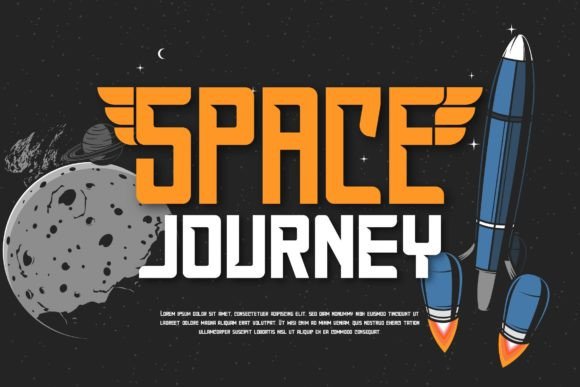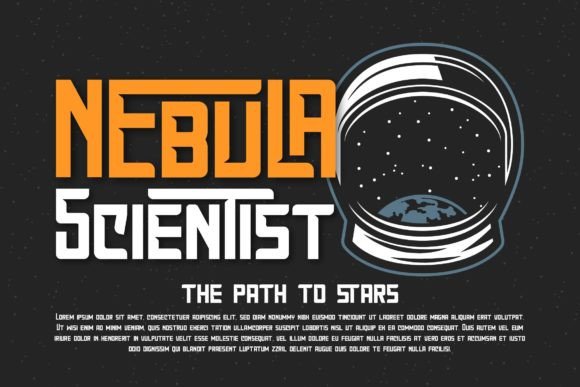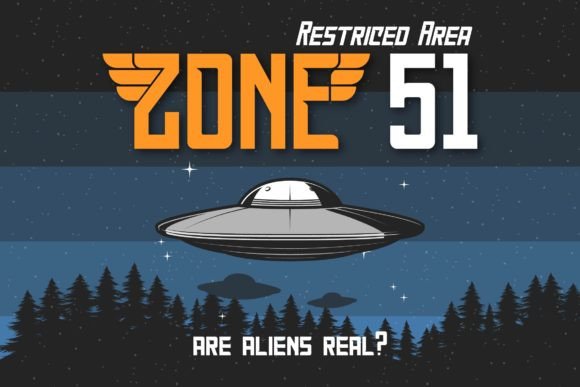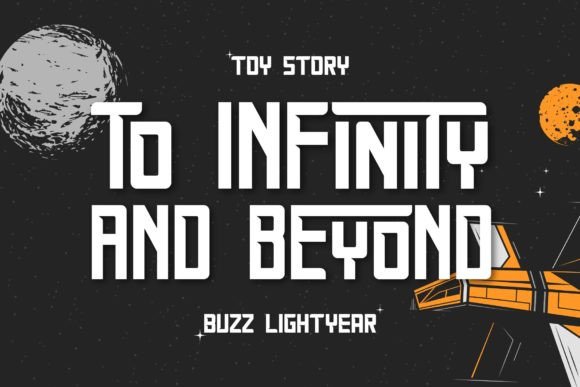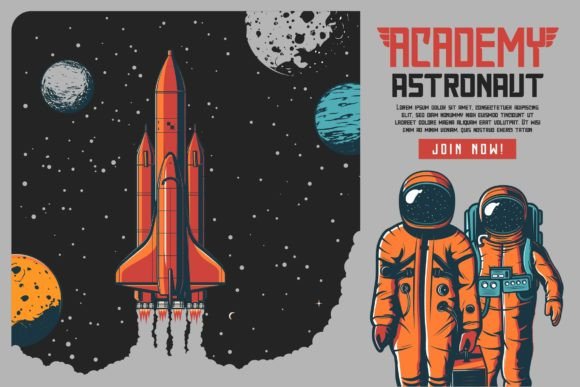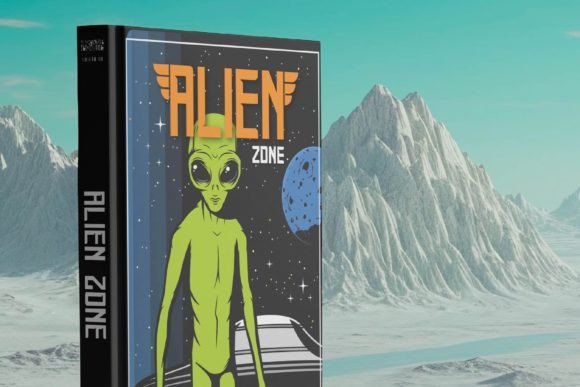
Introducing Anomaly Nexus Font: The Cosmic Choice for Bold Designs
In the vast universe of typography, a new star has emerged: Anomaly Nexus Font. This space-themed font is engineered to make your titles and headers pop with a futuristic flair that’s hard to ignore. If you’re a designer, crafter, or simply a fan of all things sci-fi, Anomaly Nexus is your go-to choice for adding a bold, cosmic touch to your projects.
The Design Behind Anomaly Nexus
Anomaly Nexus boasts a design that’s out of this world, literally. Its sharp edges and unique shapes are meticulously crafted to evoke a sense of futurism and innovation. Each letterform is a marvel of typographic engineering, with clean lines and geometric precision that scream ‘space age.’ Whether you’re working on a logo, a poster, or a digital interface, Anomaly Nexus brings a level of sophistication and edge that’s sure to captivate your audience.
Perfect for Sci-Fi Projects
Sci-fi enthusiasts and professionals alike will find Anomaly Nexus to be a dream come true. The font’s inherent futuristic vibe makes it a natural fit for any project that requires a cosmic or technological feel. From movie posters and video game titles to website headers and app interfaces, Anomaly Nexus injects your design with a dose of interstellar coolness that’s sure to resonate with fans of the genre.
Beyond Sci-Fi: Versatility in Design
While Anomaly Nexus shines in sci-fi contexts, its versatility means it can be used in a wide range of design applications. Need a bold, attention-grabbing font for a fashion brand or a tech startup? Anomaly Nexus is up to the task. Its unique aesthetic can add a memorable touch to any brand looking to stand out in a crowded marketplace. The font’s ability to convey innovation and forward-thinking makes it an excellent choice for companies looking to position themselves at the cutting edge of their industry.
Why Choose Anomaly Nexus?
- Unique Aesthetic: Offers a fresh, futuristic look that’s distinct in the world of typography.
- Versatility: Suitable for a wide range of projects, from sci-fi and tech to fashion and beyond.
- Impactful: Designed to grab attention and make a lasting impression.
Tips for Using Anomaly Nexus
To get the most out of Anomaly Nexus, consider the following tips:
- Pair with Neutrals: Balance the boldness of Anomaly Nexus with neutral fonts for body text to create visual harmony.
- Experiment with Sizes: Play with different font sizes to emphasize certain words or phrases, adding depth to your design.
- Color Matters: Choose colors that complement the futuristic feel of Anomaly Nexus, such as metallic tones, deep blues, or vibrant purples.
Anomaly Nexus Font is more than just a typeface; it’s a design statement. With its sharp edges, unique shapes, and undeniable futuristic charm, it’s the perfect tool for designers and crafters looking to add a bold, cosmic touch to their work. Whether you’re diving into the world of sci-fi or simply looking for a font that stands out, Anomaly Nexus is ready to propel your designs into the stratosphere.